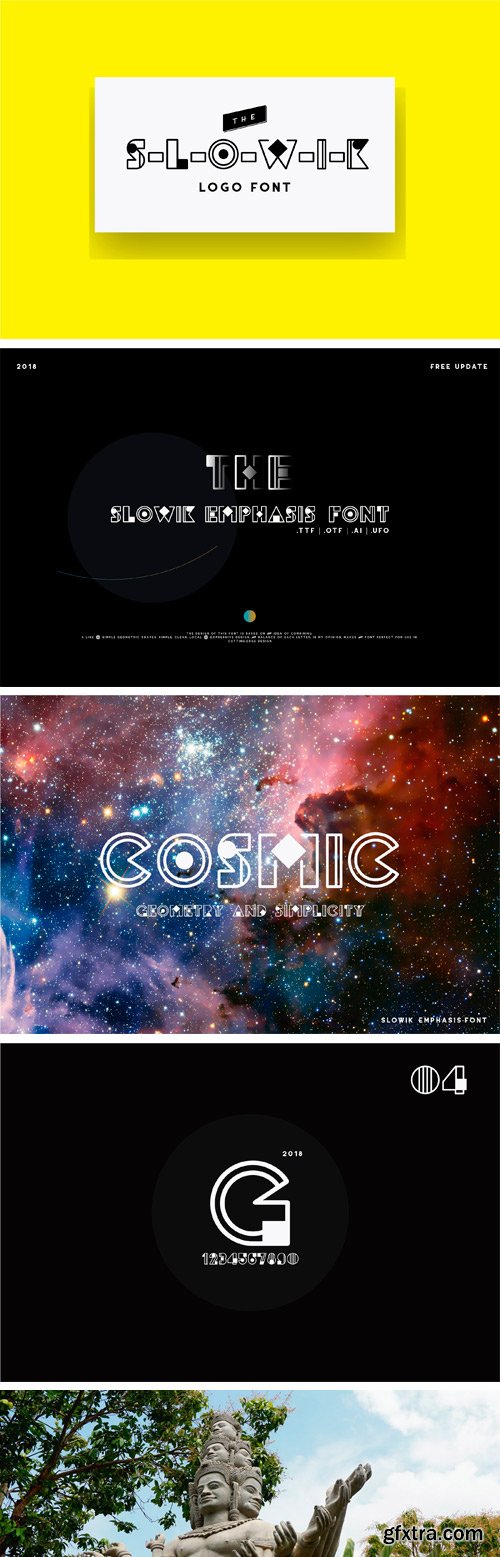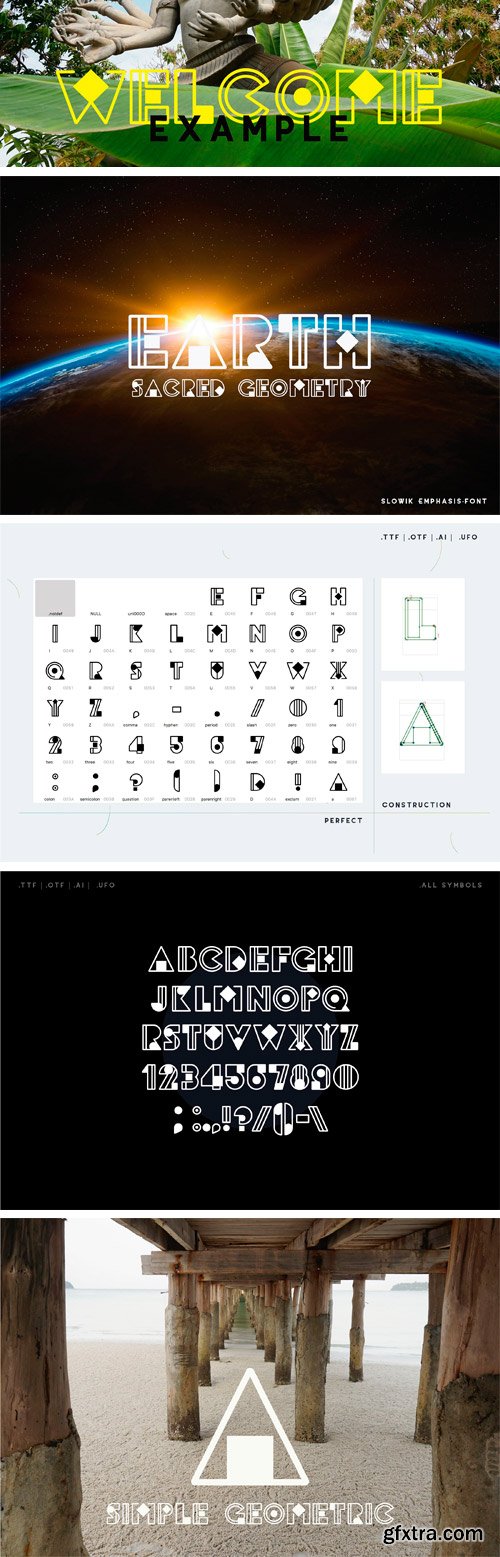
CM - Slowik Emphasis-Regular Font 2248591
The design of this font is based on the idea of combining a line and simple geometric shapes. Simple, clean, local and expressive design, the balance of each letter, in my opinion, makes the font perfect for use in cutting-edge design.